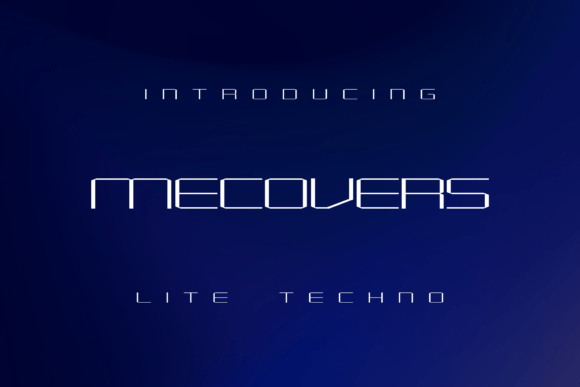
Unleash the Power of Macovers Font: The Ultimate Email Signature Game-Changer
In a world where first impressions matter, your email signature holds the key to making an impact. Meet Macovers Font, the techno-lite font engineered to elevate your email game to new heights. Its sleek and futuristic design is meticulously crafted to capture attention, leaving a lasting impression that sets you apart from the crowd.
With Macovers Font, crafting an email signature that exudes professionalism and sophistication is effortless. Its clean lines and minimalist aesthetic seamlessly integrate with your branding, creating a cohesive and visually striking identity. Whether you're a tech-savvy entrepreneur, a creative professional, or a business leader, Macovers Font empowers you to convey your message with confidence and clarity.
Beyond its aesthetic appeal, Macovers Font is a productivity booster. Its carefully designed characters enhance readability, ensuring your emails are easy on the eyes, even when read on small screens. This thoughtful detail ensures your message is received and understood, fostering effective communication and driving results.
Don't settle for ordinary email signatures. Embrace Macovers Font and unlock a world of possibilities. Transform your emails into captivating touchpoints that resonate with your audience, leaving a lasting impression that sets the stage for success.